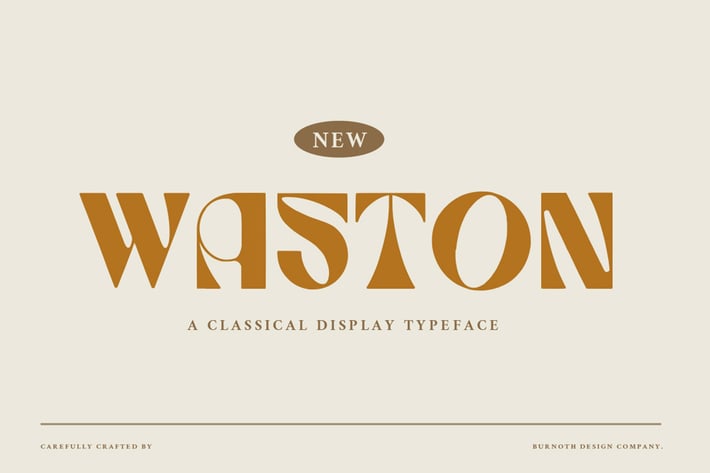
Waston - Retro Display Font
Introducing Waston – a Classic Display font
Beautiful and soft fonts in a contemporary style that can make your design projects look modern, elegant and luxurious. Made with many alternative characters to make it easier for you to do various design projects and give you fun while typing.
You can apply them to designs like social media posts, logos, merchandise, book covers, posters, video content thumbnails, quotes, landing pages, wedding invitations and much more which you can make with this great item for any design :)
Fonts include multilingual support for; ä ö ü Ä Ö Ü ß ¿ ¡